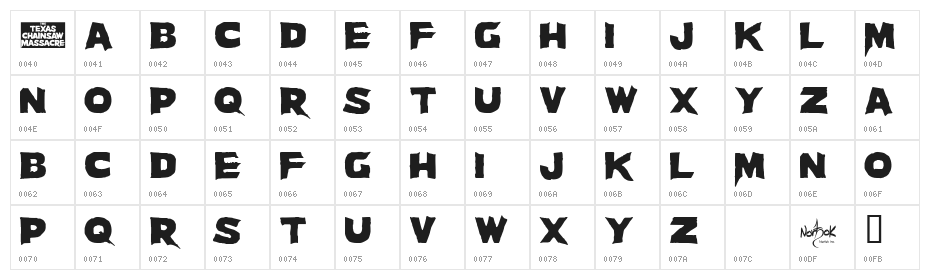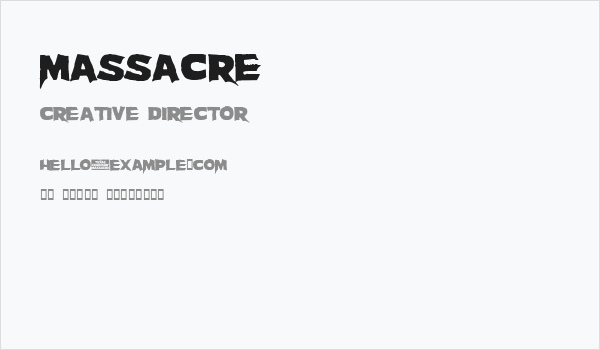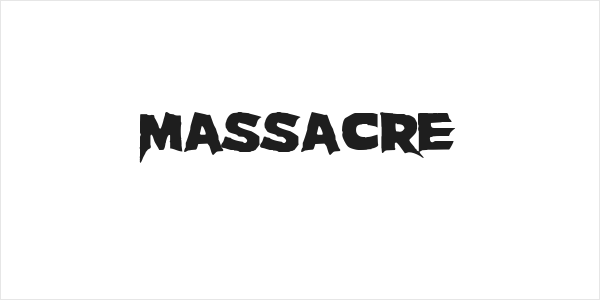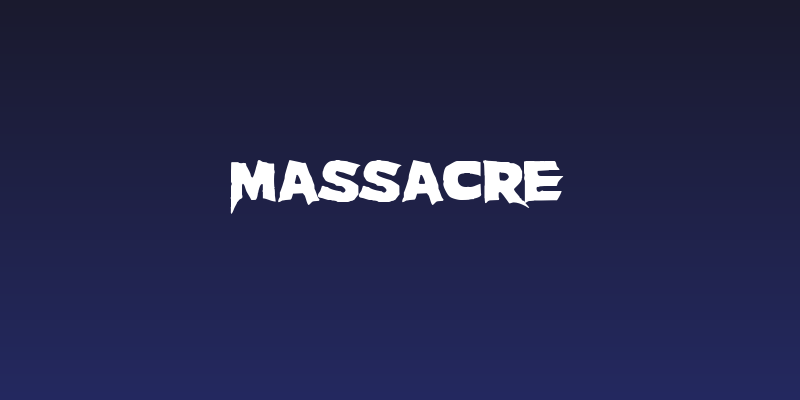
Massacre Font
✎ Horror
| 使用场景 | Headlines, Posters, Logos |
| 推荐项目 | Ideal for horror movie posters, Halloween event flyers, video game titles, and any design needing a dramatic impact. |